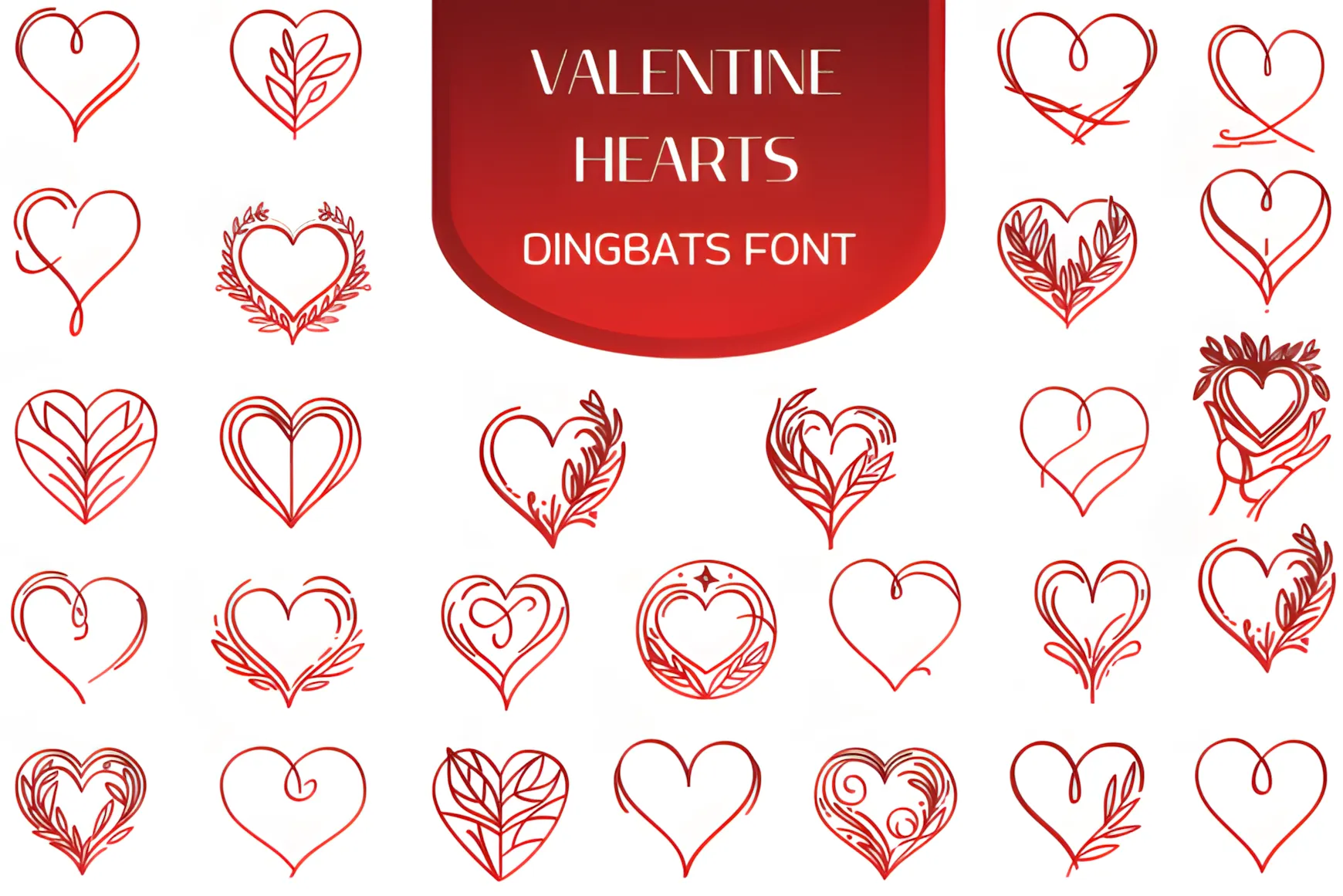
Valentine Hearts Font: Cute Dingbats for Romantic Designs
Some fonts are made to communicate with words, while others speak through symbols. Valentine Hearts Font belongs to the second type. This is a decorative dingbats font built entirely around heart illustrations,